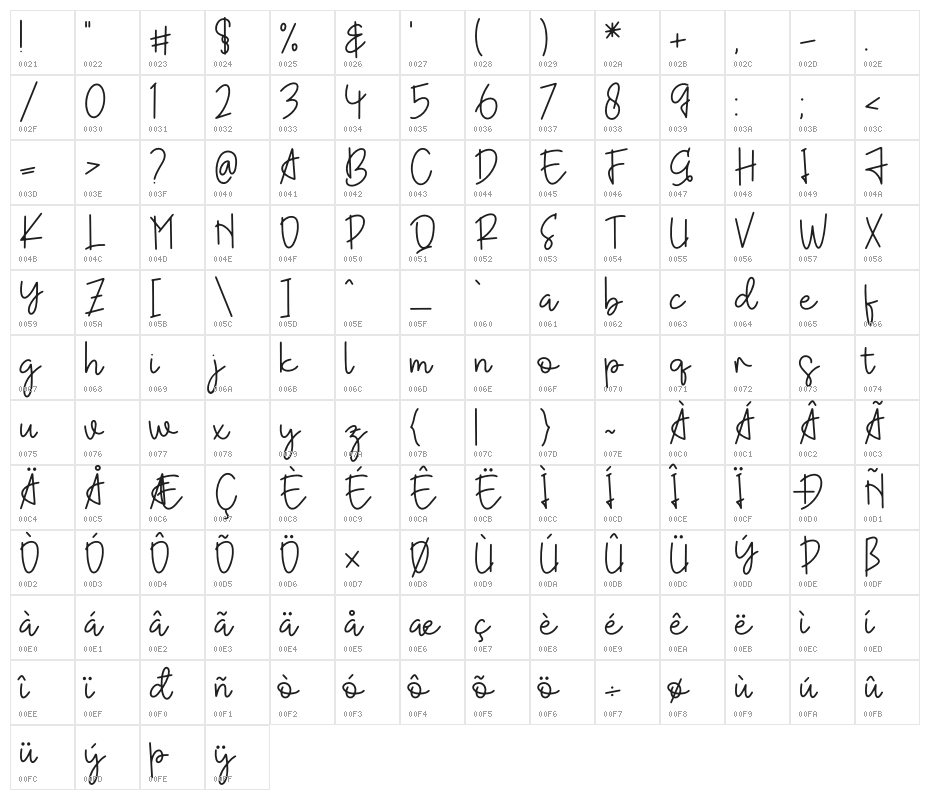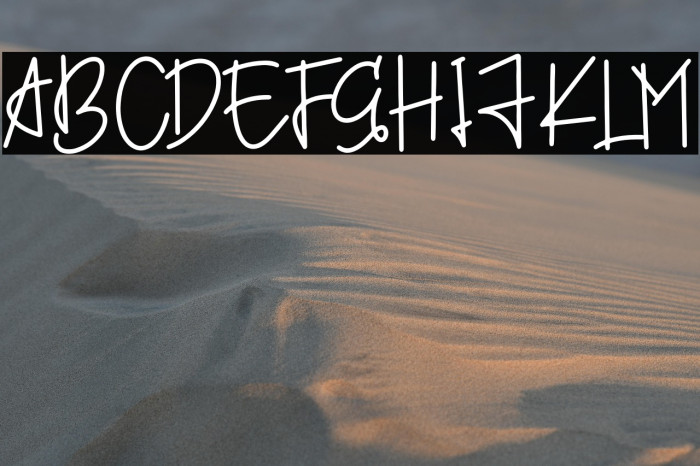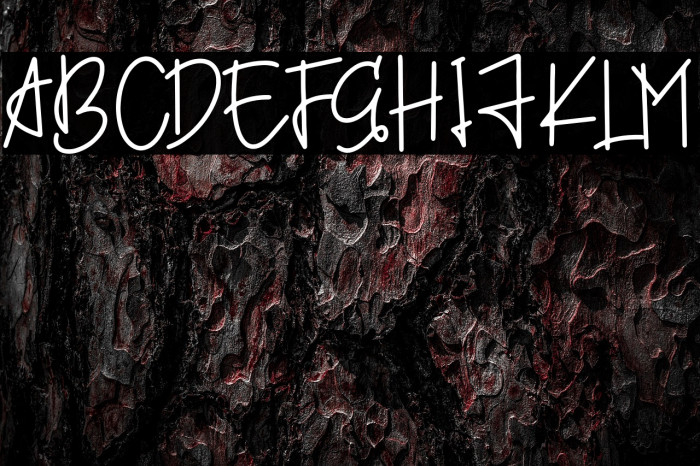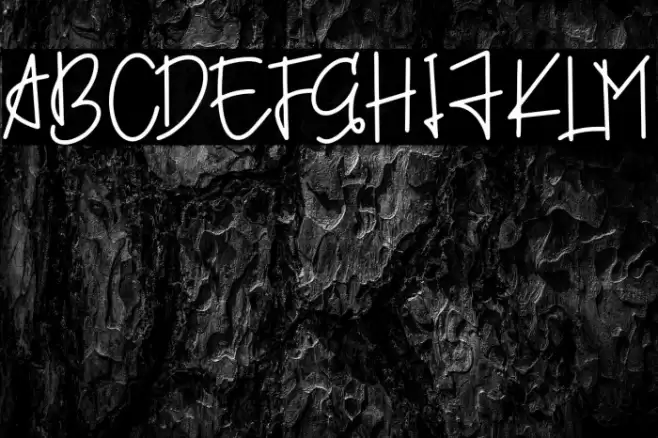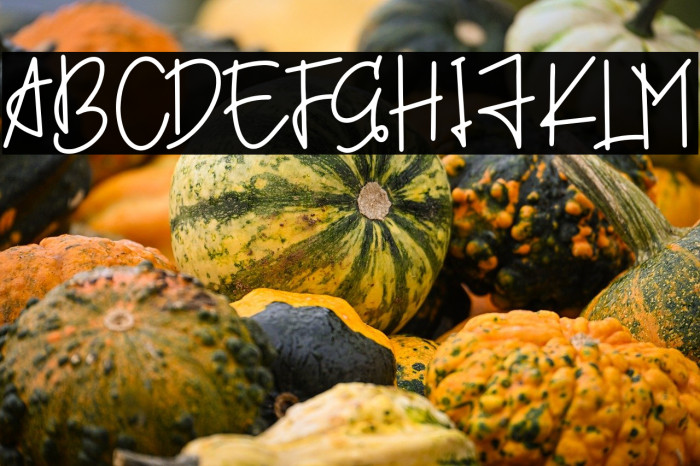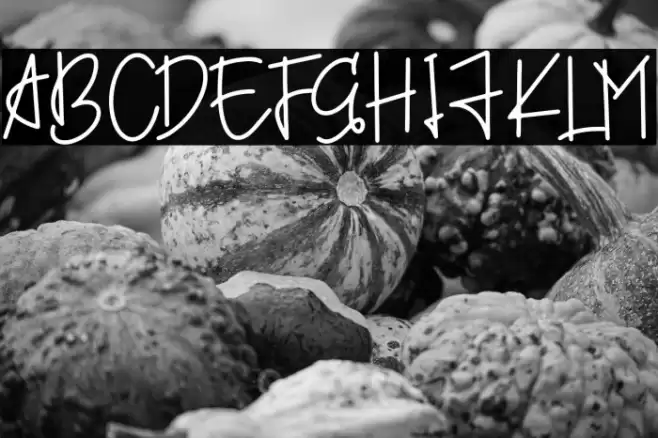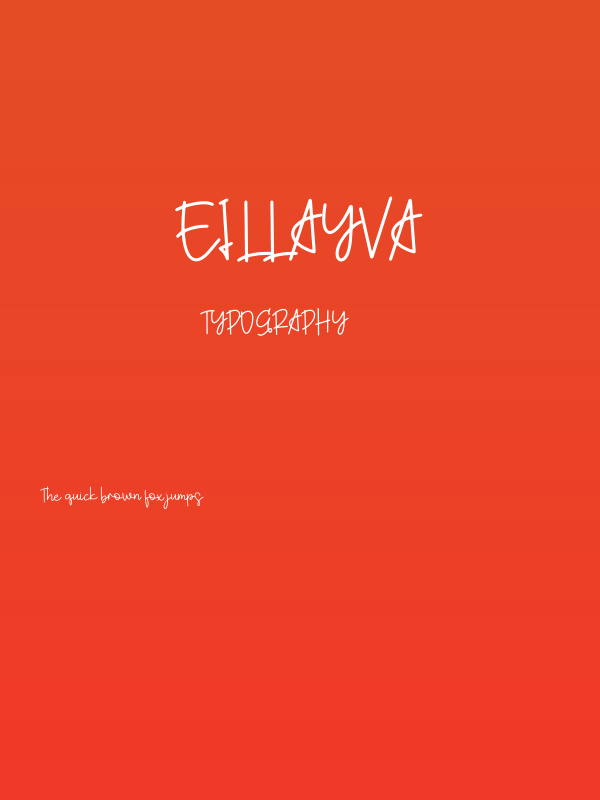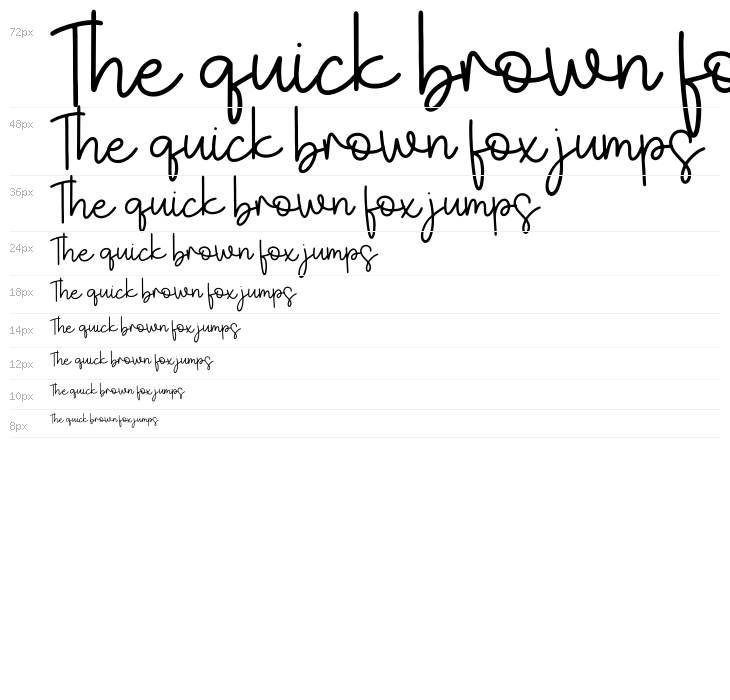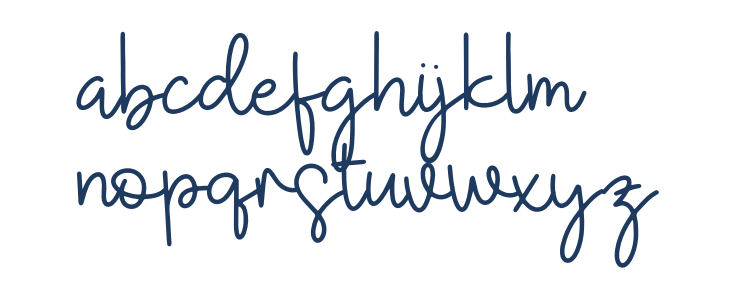
Eillayva Font
Eillayva Description
This font features a playful and casual handwritten style with a smooth flow and rounded edges. The uppercase letters are tall and slightly narrow, while the lowercase letters maintain a consistent height, creating a harmonious balance. The numerals are clear and legible, matching the overall aesthetic of the alphabet. Special characters are included, maintaining the same whimsical and approachable feel. The strokes are consistent in width, providing a uniform appearance across all characters. This font is perfect for projects that require a personal touch or a friendly, informal vibe.